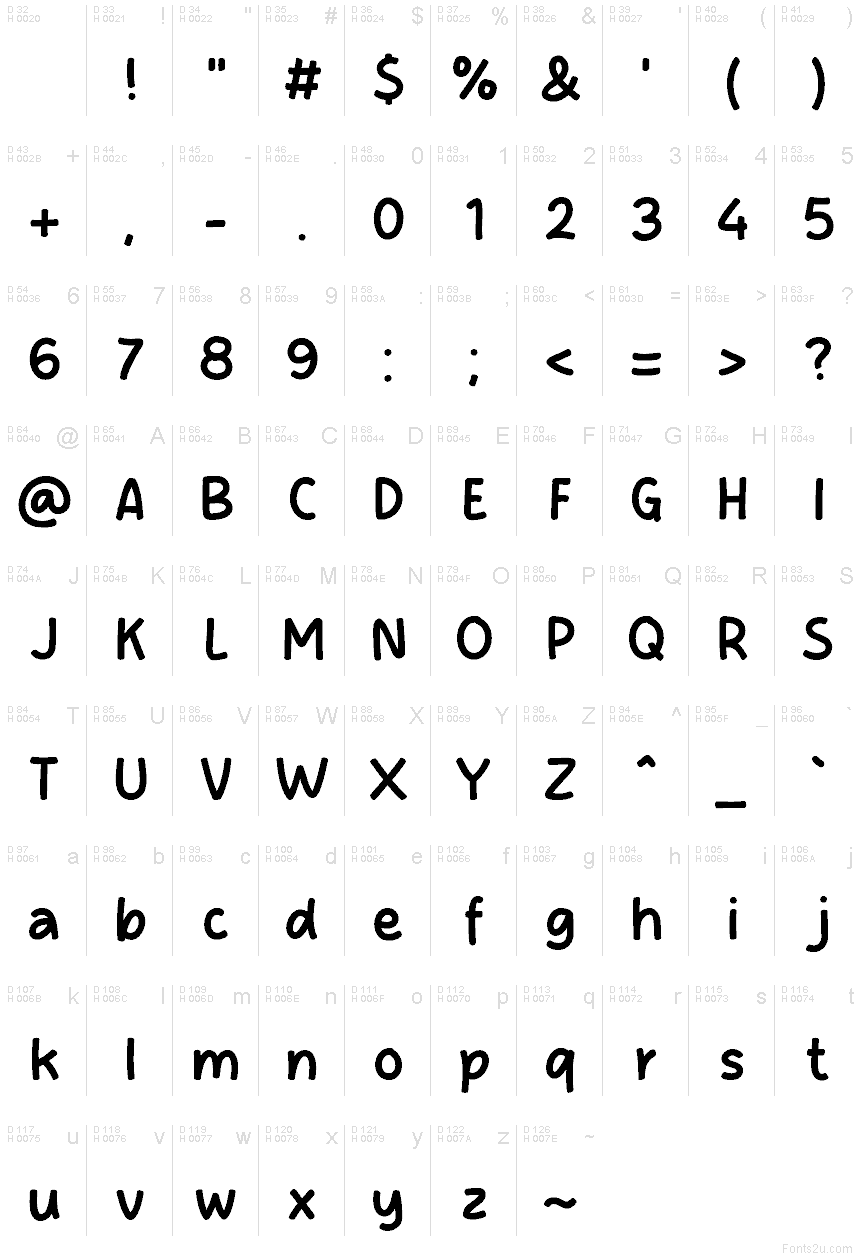
Cute Sunrise
Cute Sunrise font by MJType is a free cartoon display font with a soft and rounded character. It has a friendly, casual, and approachable appearance that makes it truly wonderful. Be as creative as you want to be with this beauty as it’s really multi-purpose and satisfying to read.
Use it for children’s books, kid games, board game covers, book covers, doodled cards, funny stickers or badges. The fun typeface will also be beautiful in logos specifically when trying to merge the hand drawn element with branding elements!